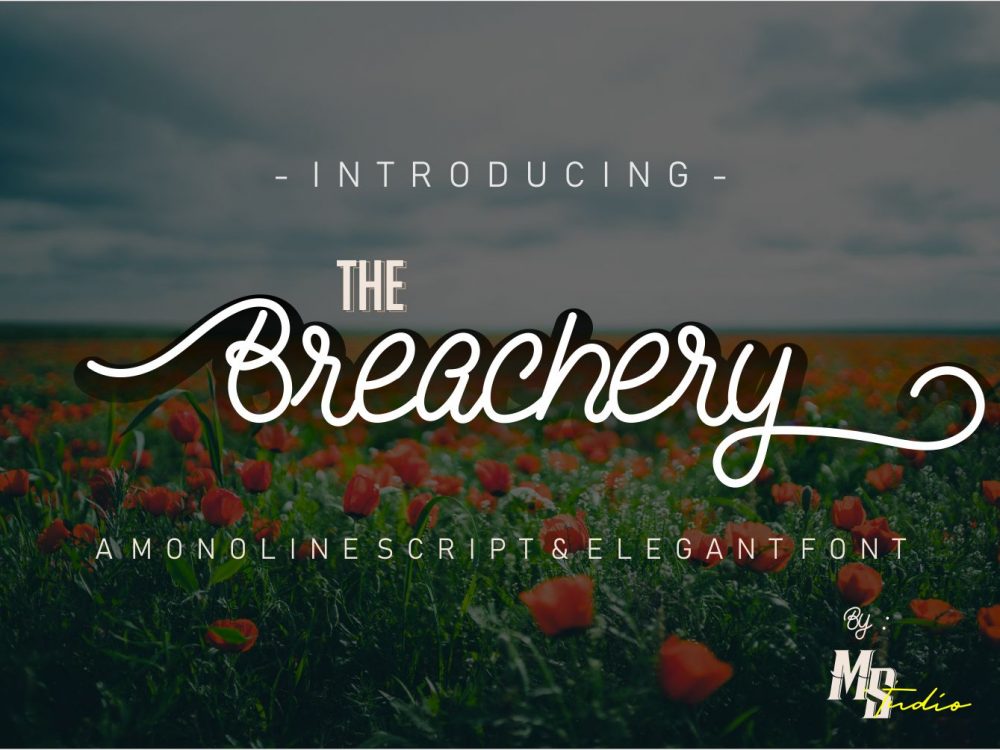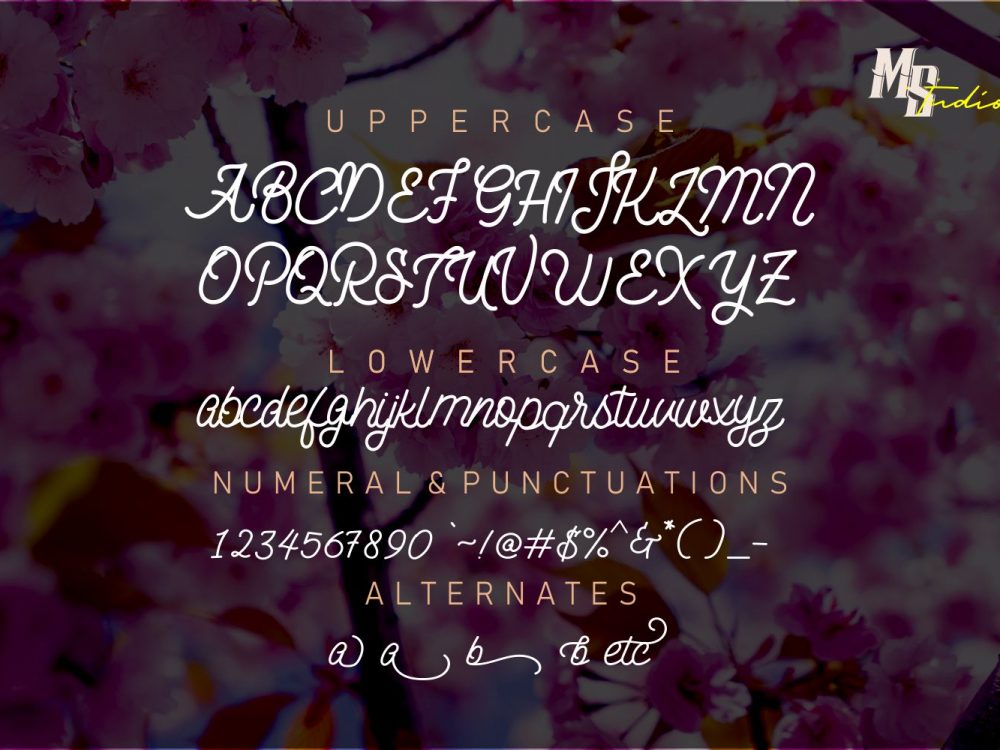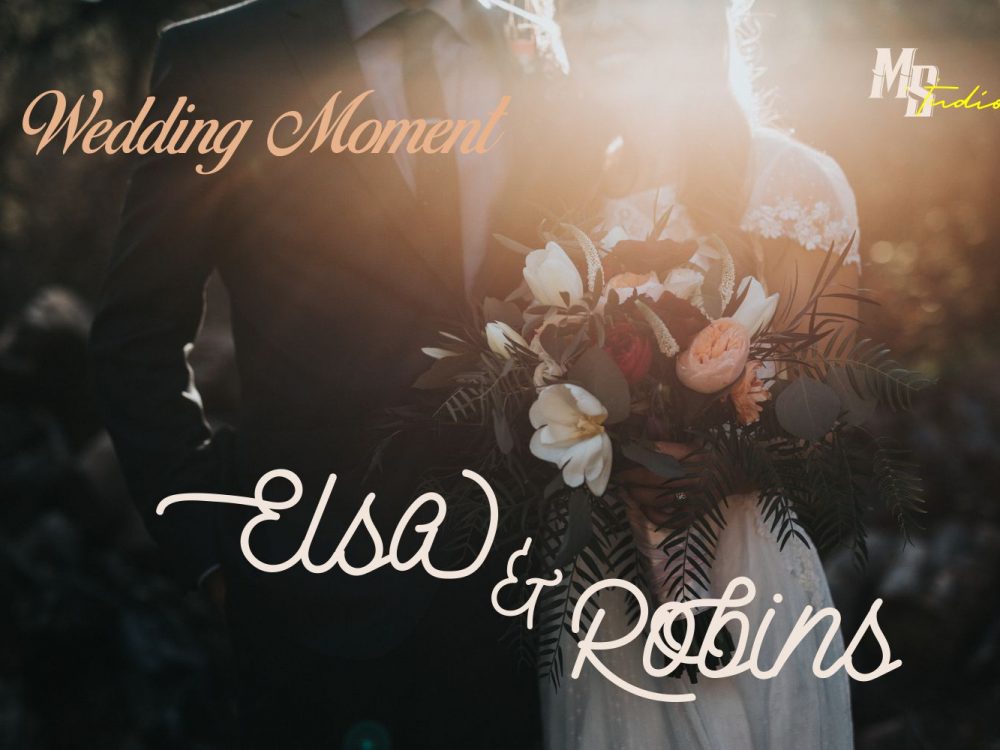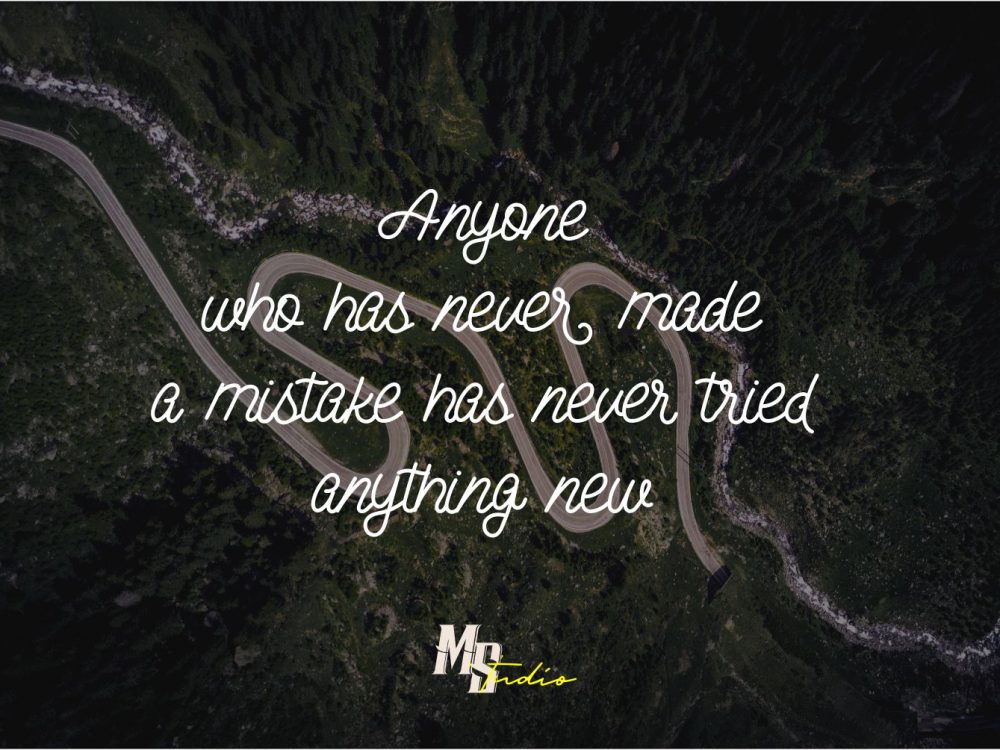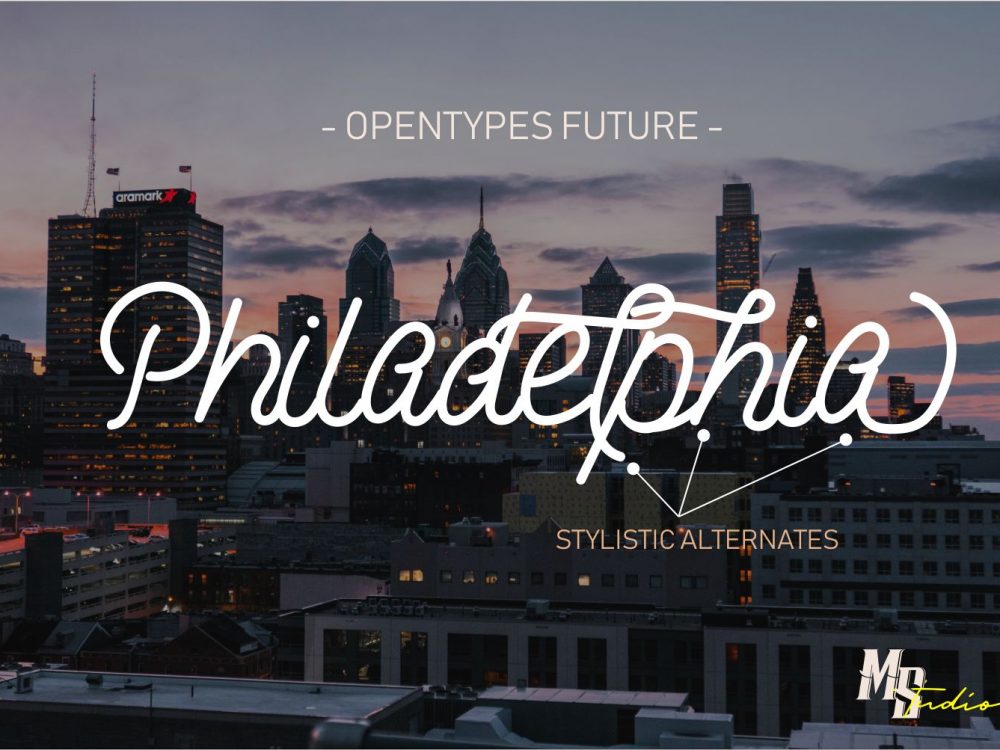
The Breachery Free Font
The Breachery Free Font is a modern script font that feels very elegant that features a modern calligraphic style among other fonts. This font is very well suited for various projects that require a scripted modern curly handwritten font. Use this font to create memorable romantic posters, wedding invitations, greeting cards, branding, flyers, t-shirt and pillow prints, and more. Improve your professional level using this font. If you like it don’t forget to check out the full version.